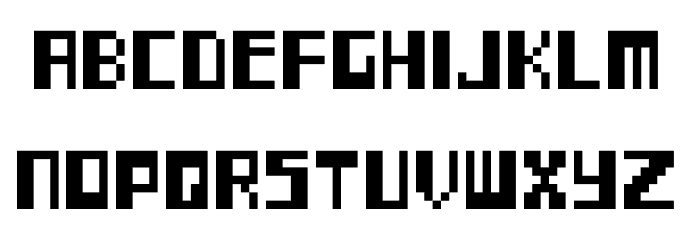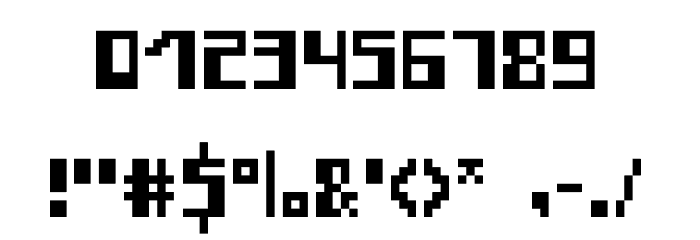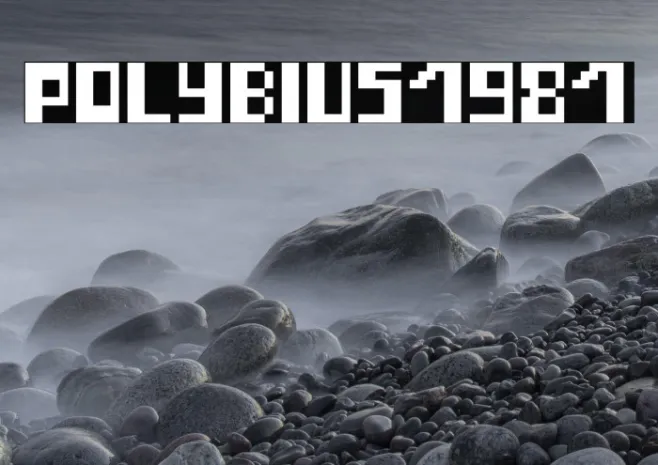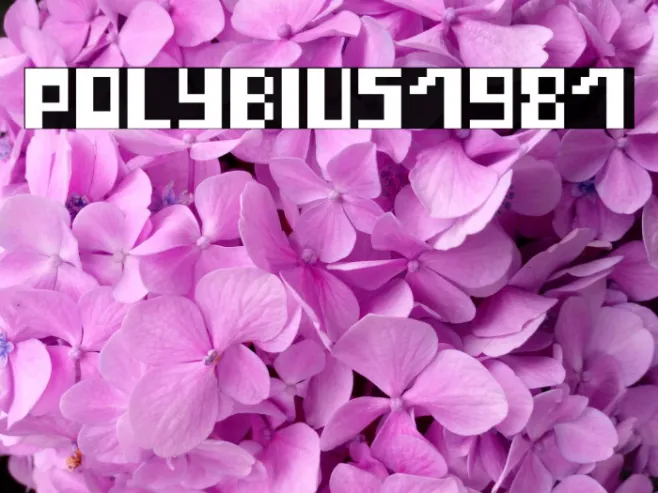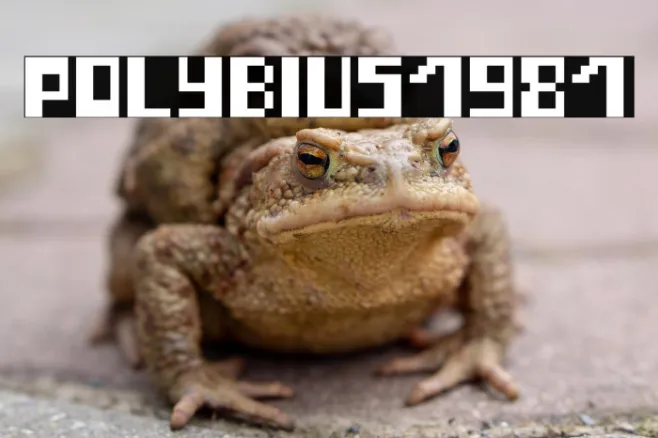
Polybius1981 Font
This font features a bold, pixelated design reminiscent of early digital and arcade aesthetics. Each character is constructed with a blocky, grid-like structure, giving it a distinctly retro and technological feel. The uppercase and lowercase letters share a uniform height, enhancing the geometric and monospaced appearance. The numerals and special characters maintain this consistent style, ensuring a cohesive look across all text. The font's simplicity and clarity make it highly legible, even at smaller sizes, while its unique style adds a nostalgic charm. It's particularly suited for projects that aim to evoke a sense of vintage computing or gaming.
- Font: Polybius1981
- Proposed Projects: Ideal for video game design, retro-themed posters, digital art, and tech-related branding.
- Category: Monospaced
- Overall Style: Vintage
- Use Case: Logos, Headlines, Digital displays